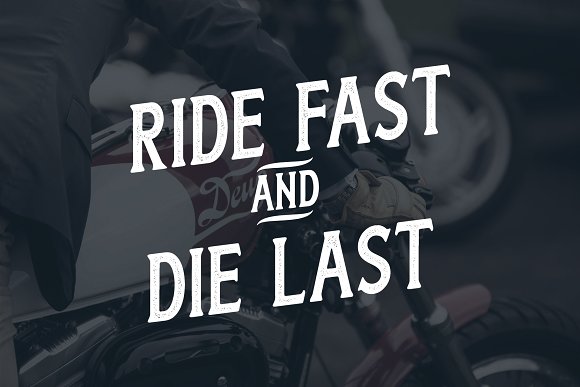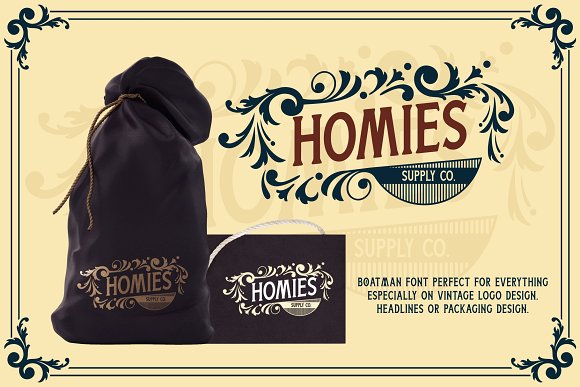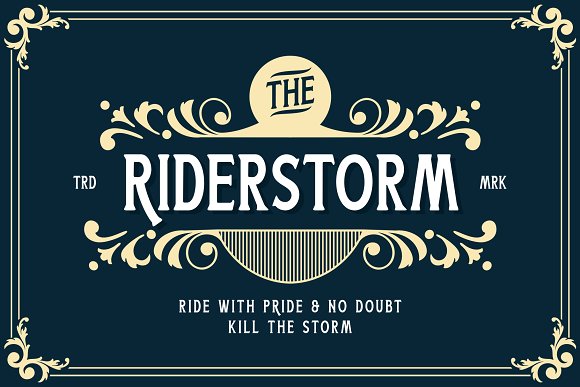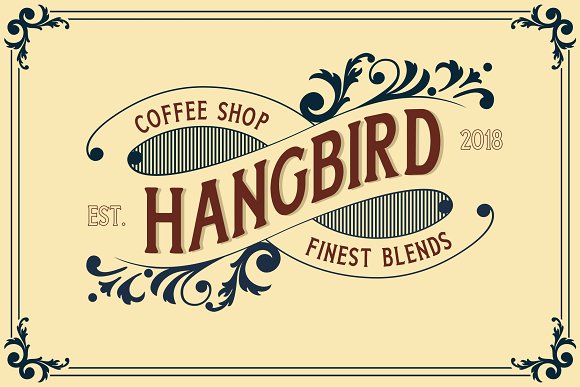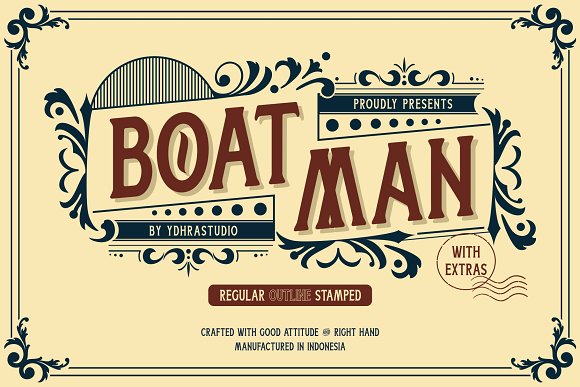
Boatman Display Font
Hello world..!! A vintage font family. Introducing Boatman Font! It is designed and shared by YdhraStudio. Boatman is a vintage display font inspired from classic whiskey labels, vintage labels and sing painting. Boatman comes with 3 styles (Regular, Outline and Stamped) that extends the possibilities when you design something. Boatman also has the Stylistic Set. With the Stylistic Set, Boatman gives you so many options to create something awesome. Mix and match the alternate characters to add an attractive message to your design.